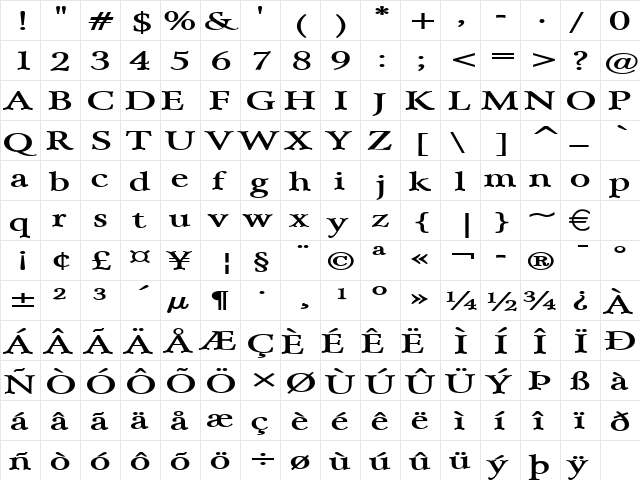
ArrayExtended Bold
Design Context for ArrayExtended Typeface
ArrayExtended is a composed and adaptable typeface that performs quietly and consistently across a wide range of design contexts. Its bold stroke weight gives it real presence on the page.
Pro Tip: Use ArrayExtended in both headline and body roles to test its range before committing to a single application.